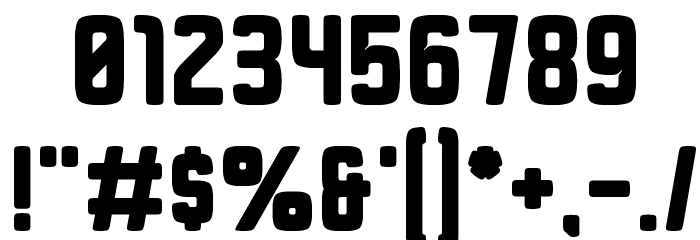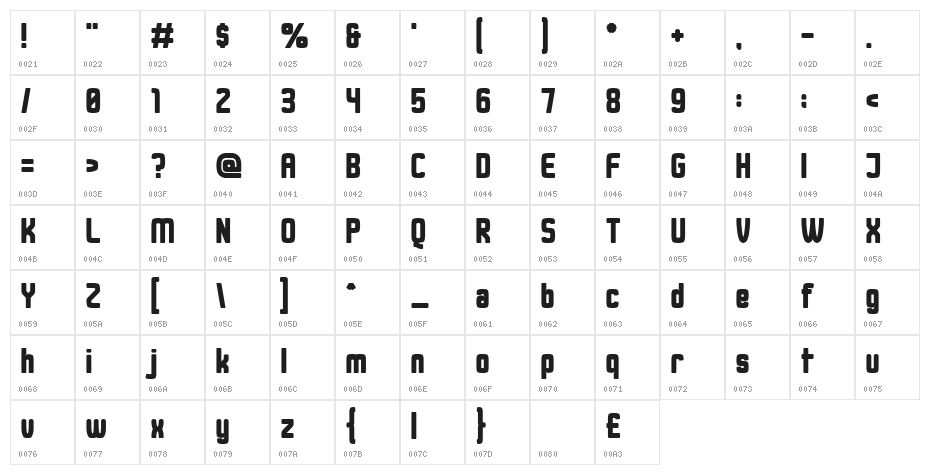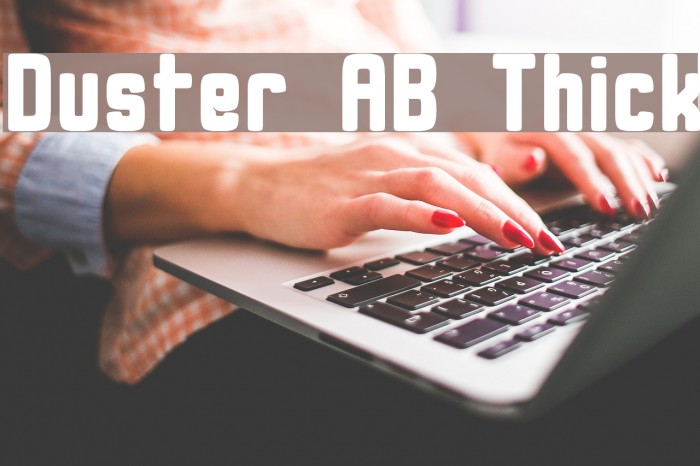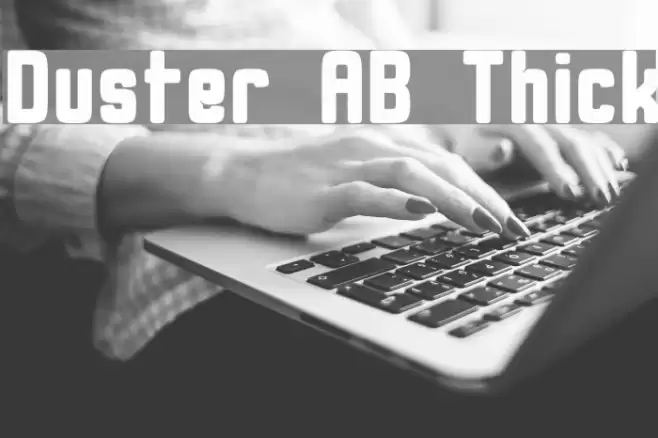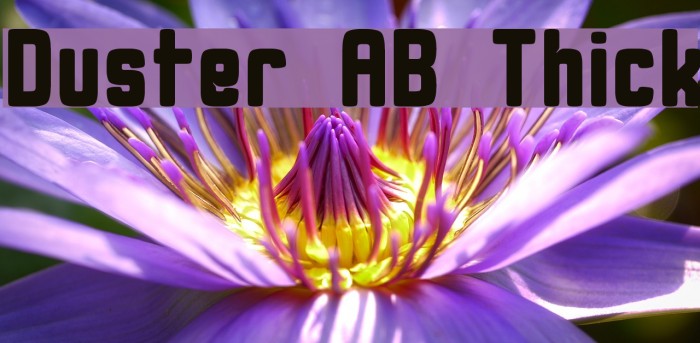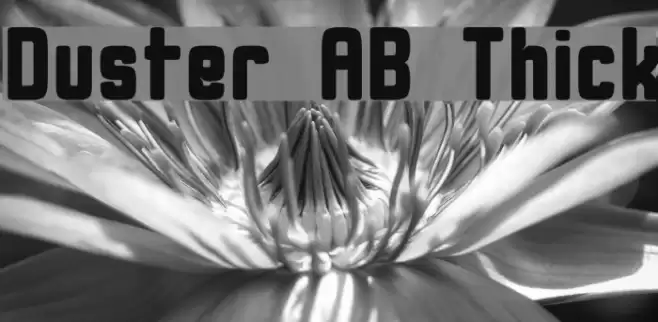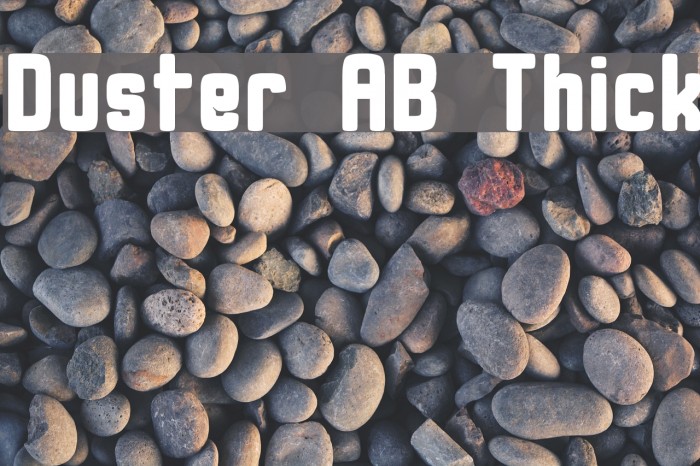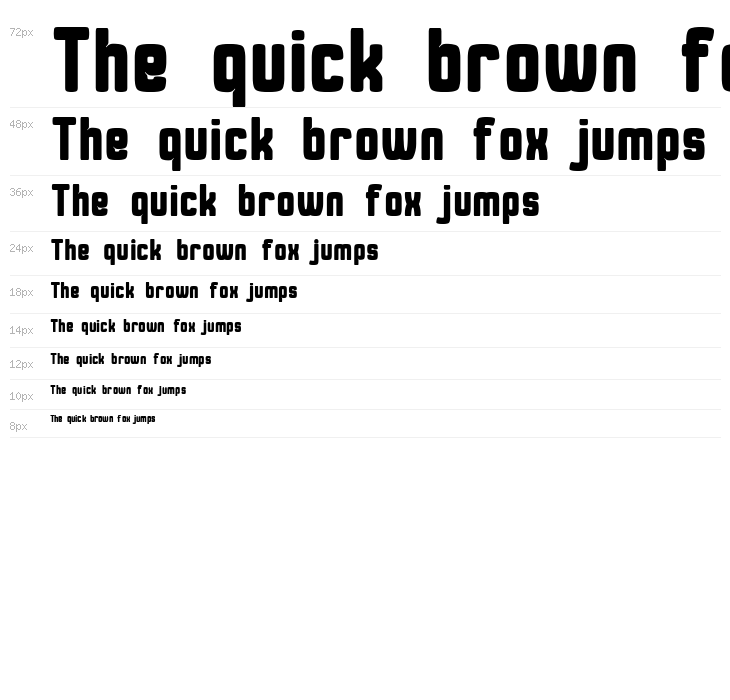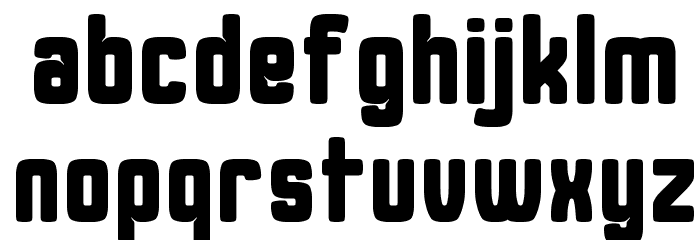
Duster AB Thick Font
Duster AB Thick Description
This font features bold, rounded characters with a modern and playful aesthetic. The uppercase and lowercase letters maintain a consistent thickness, creating a cohesive look. The numbers and special characters follow the same design principles, ensuring uniformity across all glyphs. The rounded edges give it a friendly and approachable feel, making it suitable for various creative applications. The font's thick strokes and rounded corners contribute to its distinctive appearance, making it stand out in any design project.
| Proposed Projects | Ideal for branding, children's books, posters, and playful designs. |